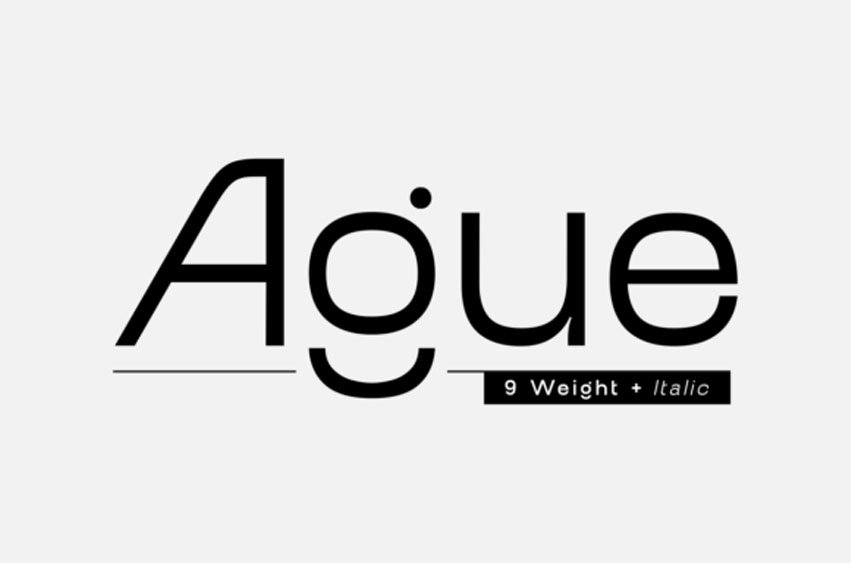
Ague Font
Ague Font is a sleek sans serif typeface family with a contemporary flourish, built to infuse versatility and sophistication across a gamut of design genres. This font family flaunts a ladder of 9 progressive weights, ranging from the slender ‘Thin’ to the robust ‘Black,’ each with an accompanying italic variant. Ague ensures comprehensive typographic adaptability.
With its equilibrium of proportions, razor-sharp contours, and pared-down details, Ague finds its sweet spot in brand styling, textual layouts for publications, user interface/user experience brainstorming, and high-impact corporate demonstrations.
Ague’s design resonance remains undiminished, irrespective of the size, projecting a blend of lucidity and panache whether on a printed canvas or a backlit screen.